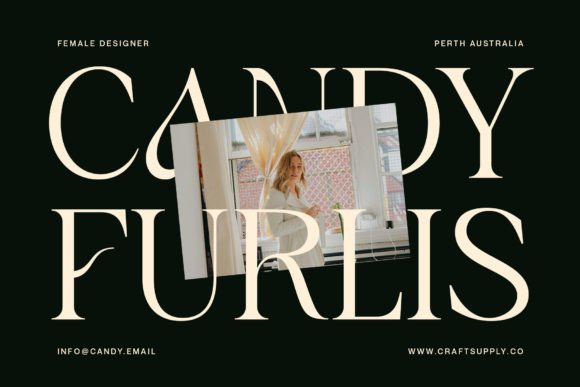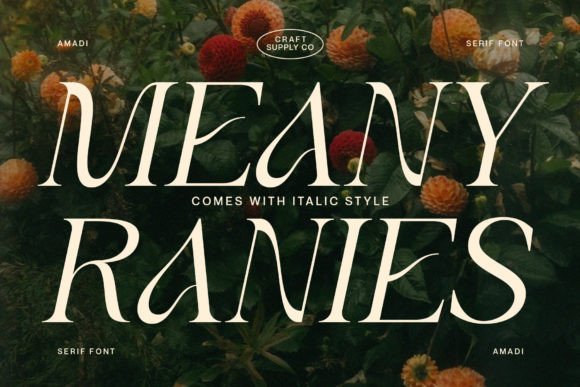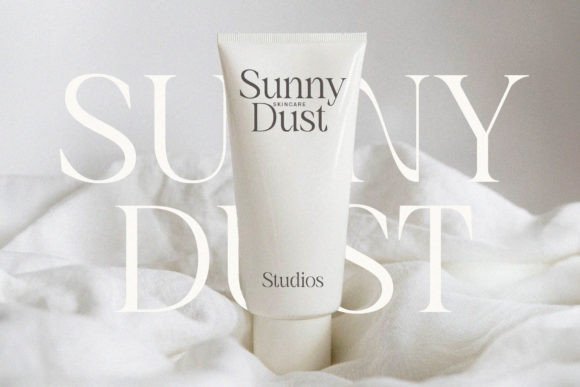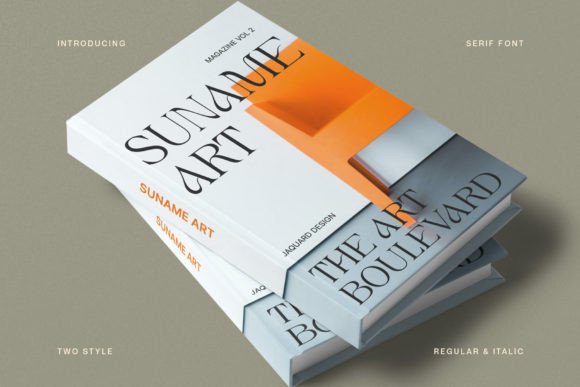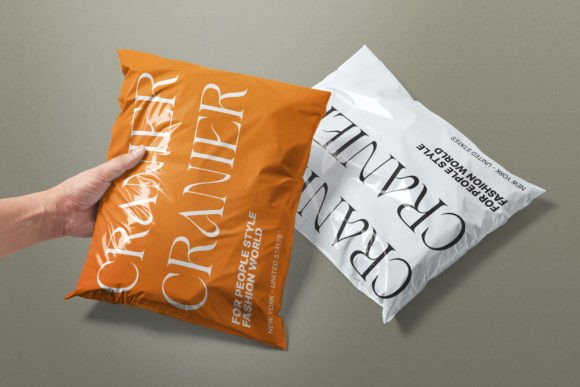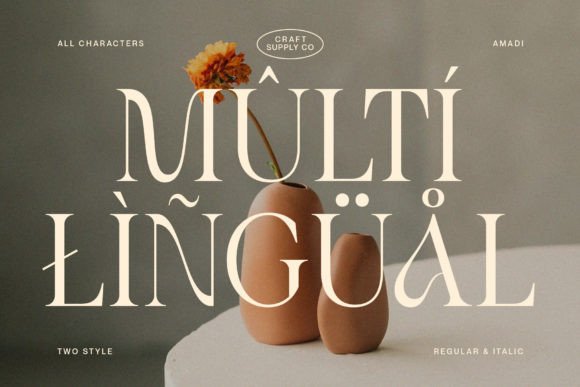
Introduction to Amadi Font
Amadi – Quirky Serif Font is a delightful typeface that dances to its own beat, infusing a dash of whimsy and charm into your designs.
With its quirky serifs and playful letterforms, Amadi takes the traditional serif style and gives it a whimsical twist This font is the perfect choice for projects that aim to stand out and make a statement with a touch of quirkiness.
Key Features of Amadi Font
Why Choose Amadi Font?